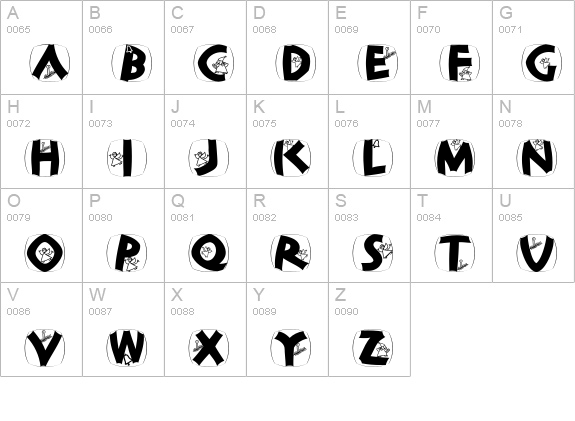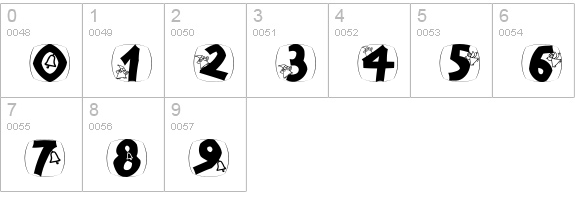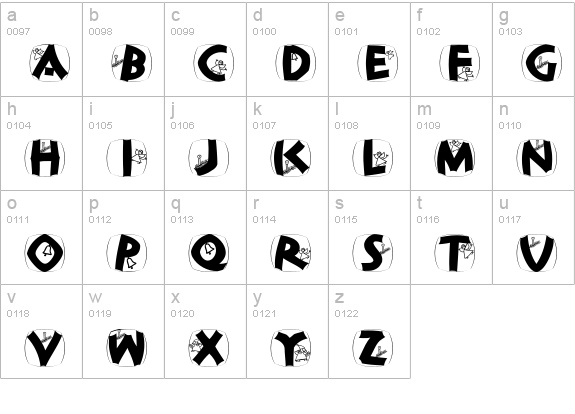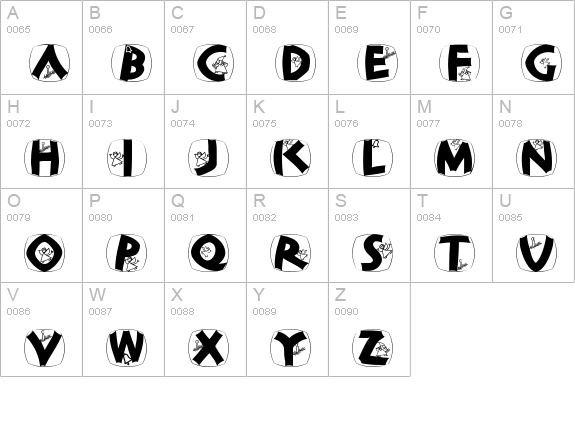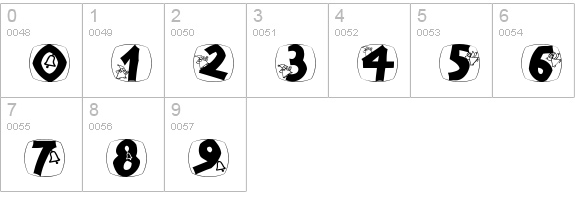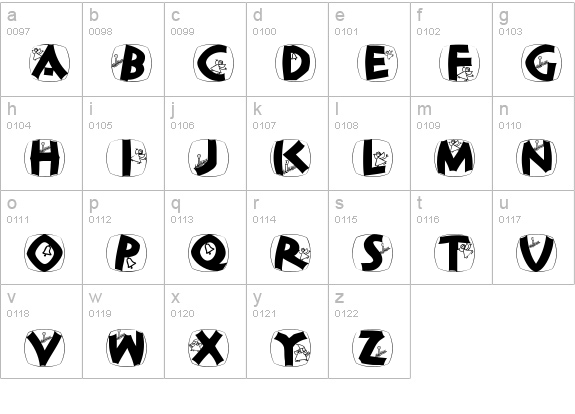
ClassiCapsXmas Font Details
ClassiCapsXmas font is a festive and elegant typeface perfect for adding a touch of holiday cheer to your designs. With its decorative and ornate letterforms, this font exudes a sense of sophistication and warmth, making it ideal for Christmas-themed projects such as greeting cards, invitations, posters, and more. What sets ClassiCapsXmas font apart is its versatility and timeless appeal, making it a go-to choice for designers looking to elevate their holiday creations. Whether you're working on a personal project or a professional design, this font is sure to make a statement and leave a lasting impression. The best part? ClassiCapsXmas font is available for free download at FontsMarket.com, allowing you to access this premium-quality typeface without any cost. Don't miss out on the opportunity to enhance your holiday designs with the charm and elegance of ClassiCapsXmas font. Download it today and start spreading the joy of Christmas with every letter you write.